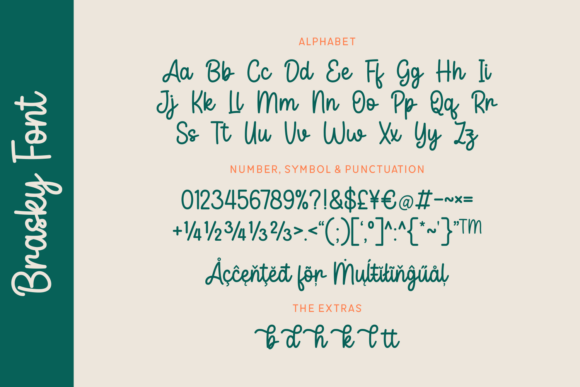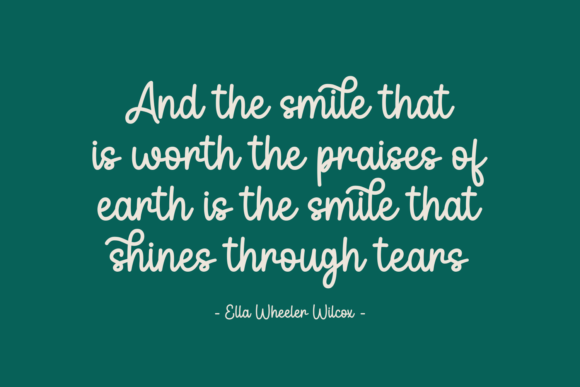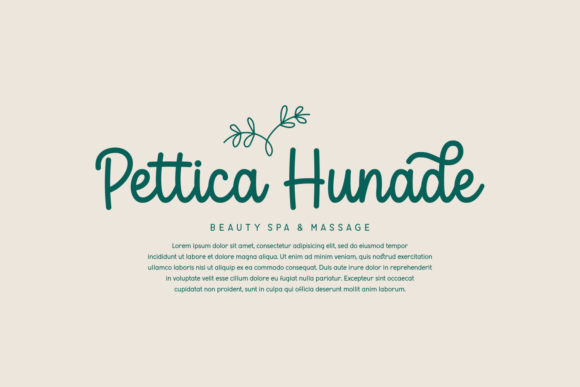
Discover the Elegance of Brasky Font: A Clean and Simple Monoline Script Font
In the world of typography, fonts play a crucial role in conveying messages, expressing creativity, and enhancing visual appeal. For designers, crafters, and anyone looking to add a touch of elegance to their projects, the Brasky Font is an excellent choice. This clean and simple monoline script font has been gaining popularity for its modern look, readability, and versatility. In this article, we’ll delve into the features, benefits, and uses of the Brasky Font, and explore why it’s becoming a favorite among creative professionals.
What is Brasky Font?
Brasky is a monoline script font characterized by its smooth, flowing letters that create a modern and elegant look. The font features a single-line design, which gives it a unique charm and makes it stand out from more traditional fonts. This simplicity and clean design make Brasky highly readable, perfect for a variety of applications, from invitations and logos to creative projects and digital content.
Key Features of Brasky Font
- Clean and Simple Design: The monoline design of Brasky gives it a sleek and contemporary look that appeals to modern tastes.
- Elegant and Modern: The smooth flow of letters creates an elegant appearance, suitable for projects that require a touch of sophistication.
- High Readability: Despite its stylish look, Brasky maintains high readability, making it practical for use in various contexts.
- Versatile: Brasky can be used for a wide range of projects, including invitations, logos, branding, and creative crafts.
Uses of Brasky Font
The versatility of Brasky Font makes it suitable for numerous applications. Here are some of the most popular uses:
- Invitations: Whether you’re planning a wedding, birthday party, or any other special event, Brasky can add an elegant touch to your invitations.
- Logos and Branding: For businesses looking for a modern and sophisticated logo or brand identity, Brasky offers a clean and stylish solution.
- Creative Projects: Crafters and DIY enthusiasts can use Brasky to add a professional and elegant look to their projects, such as handmade cards, posters, and artwork.
- Digital Content: Bloggers, influencers, and content creators can use Brasky to enhance the visual appeal of their digital content, including blog headers, social media graphics, and more.
Benefits of Using Brasky Font
Choosing Brasky Font for your projects comes with several benefits:
- Unique and Distinctive: The monoline design of Brasky sets it apart from more traditional fonts, allowing your projects to stand out.
- Easy to Pair: Brasky’s clean and simple design makes it easy to pair with other fonts, offering flexibility in design.
- Scalability: Brasky maintains its elegance and readability even at different sizes, making it suitable for both print and digital use.
- Time-Saving: With Brasky, you can achieve a professional and stylish look without spending hours on custom typography.
How to Use Brasky Font Effectively
To make the most of Brasky Font, consider the following tips:
- Combine with Contrasting Fonts: Pair Brasky with contrasting fonts to create visual interest and hierarchy in your designs.
- Adjust Letter Spacing: Tweaking the letter spacing can enhance the flow and readability of your text.
- Utilize Different Sizes: Use varying sizes of Brasky to emphasize certain parts of your text and create a dynamic look.
- Experiment with Colors: While Brasky looks great in black and white, experimenting with colors can add another layer of elegance to your designs.
Brasky Font is a versatile and elegant monoline script font that offers a perfect blend of modernity and readability. Its clean and simple design makes it suitable for a wide range of applications, from invitations and logos to creative projects and digital content. By incorporating Brasky into your designs, you can add a touch of sophistication and make your text stand out beautifully. Whether you’re a designer, crafter, or DIY enthusiast, Brasky Font is an excellent choice for elevating your visual projects.